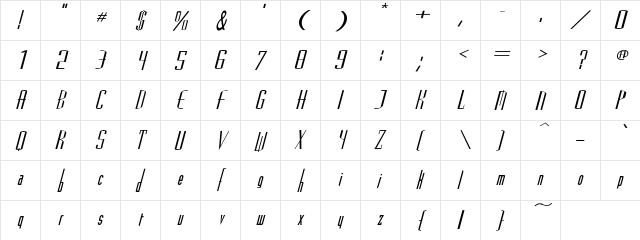
Madrid2ExpItal Regular Font Preview
Madrid2ExpItal Regular
Design Context for Madrid2ExpItal Typeface
Madrid2ExpItal offers clean, dependable letterforms without strong stylistic allegiance, making it a practical choice for designers who need flexibility.